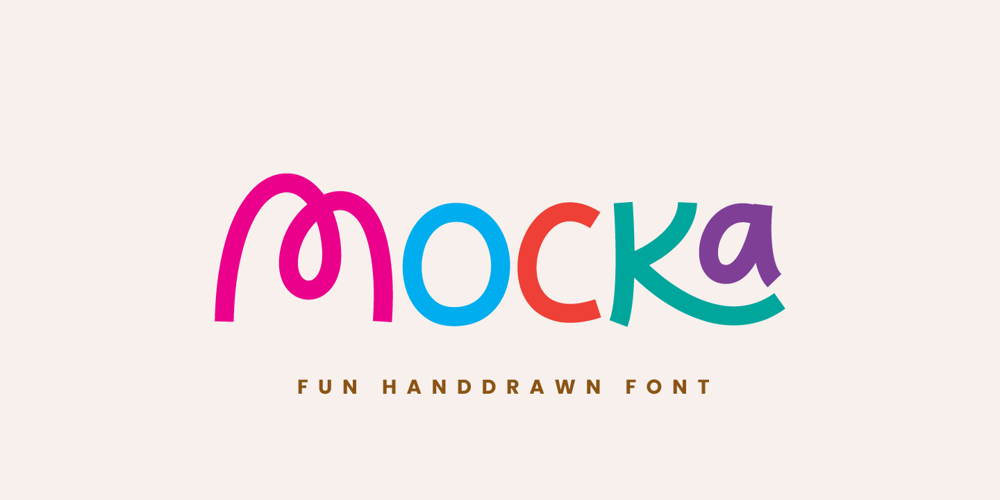
Mocka Font Family was designed by Iqbal Pauji and published by Typebae. Mocka contains 1 styles and family package options. Mocha is a playful hand-drawn font with unique ligatures that add a personal touch to any design. Ideal for invitations, branding, and custom stationery, its playful style and distinctive letterforms make it stand out.Perfect for bringing a handwritten, vibrant feel to your projects.